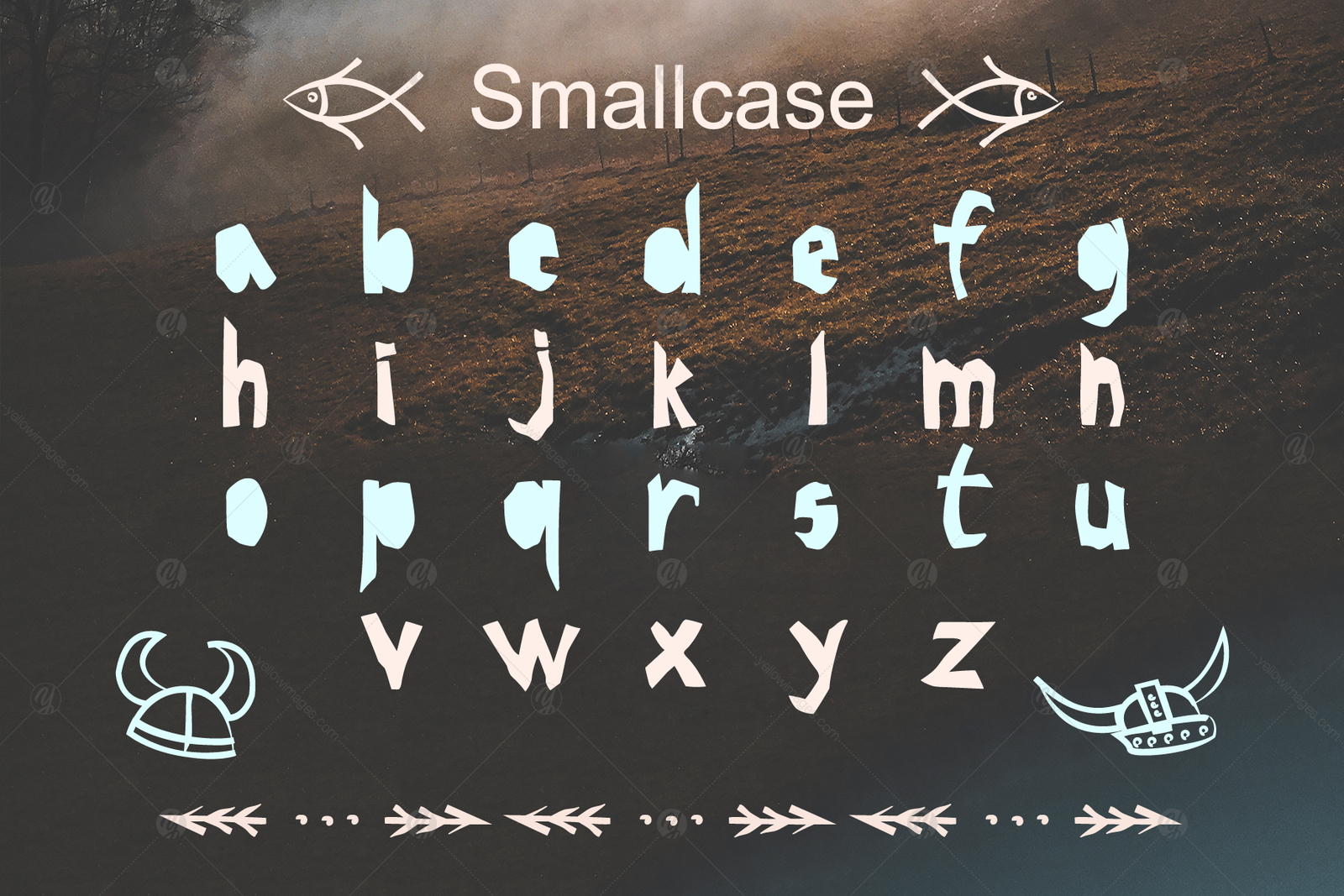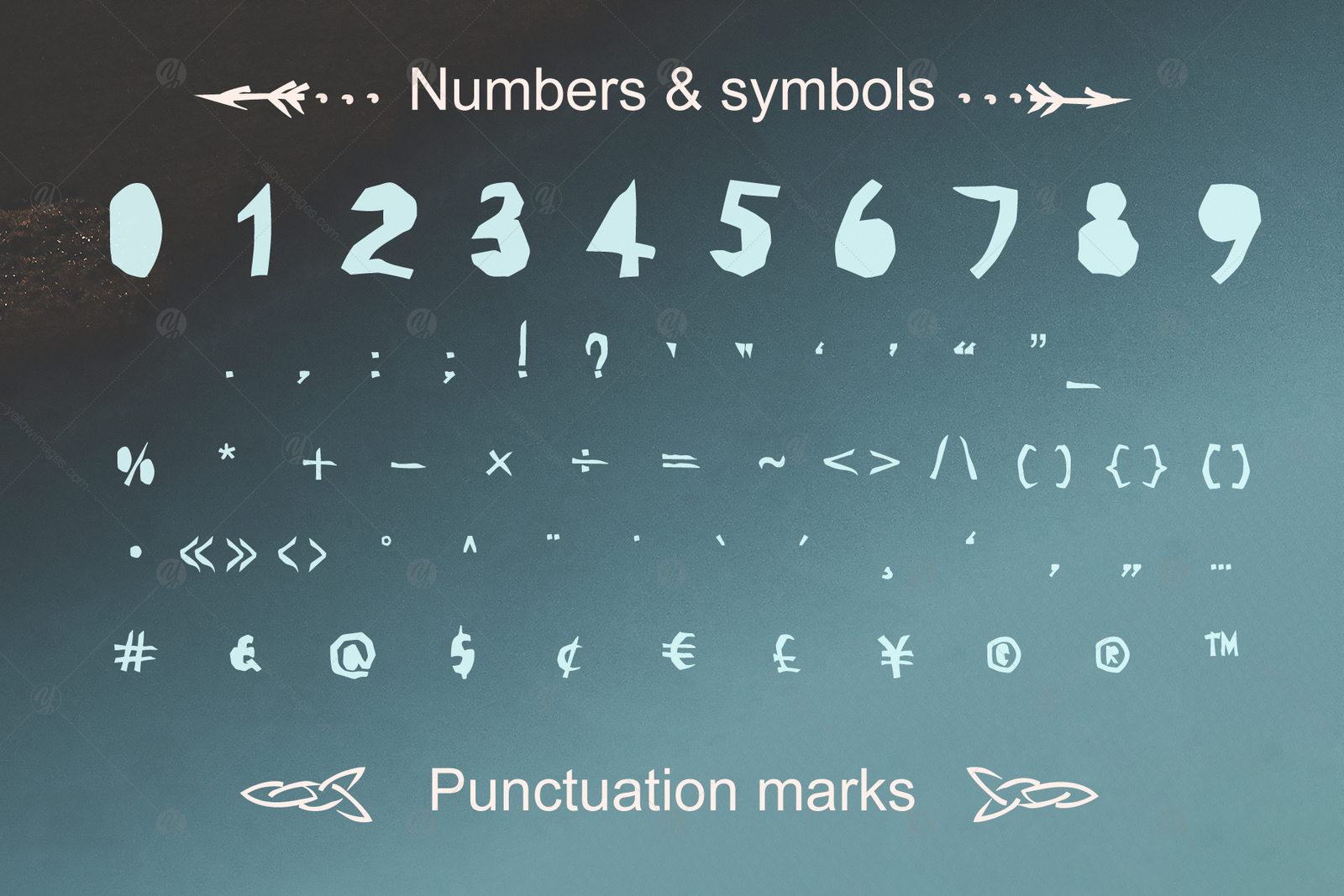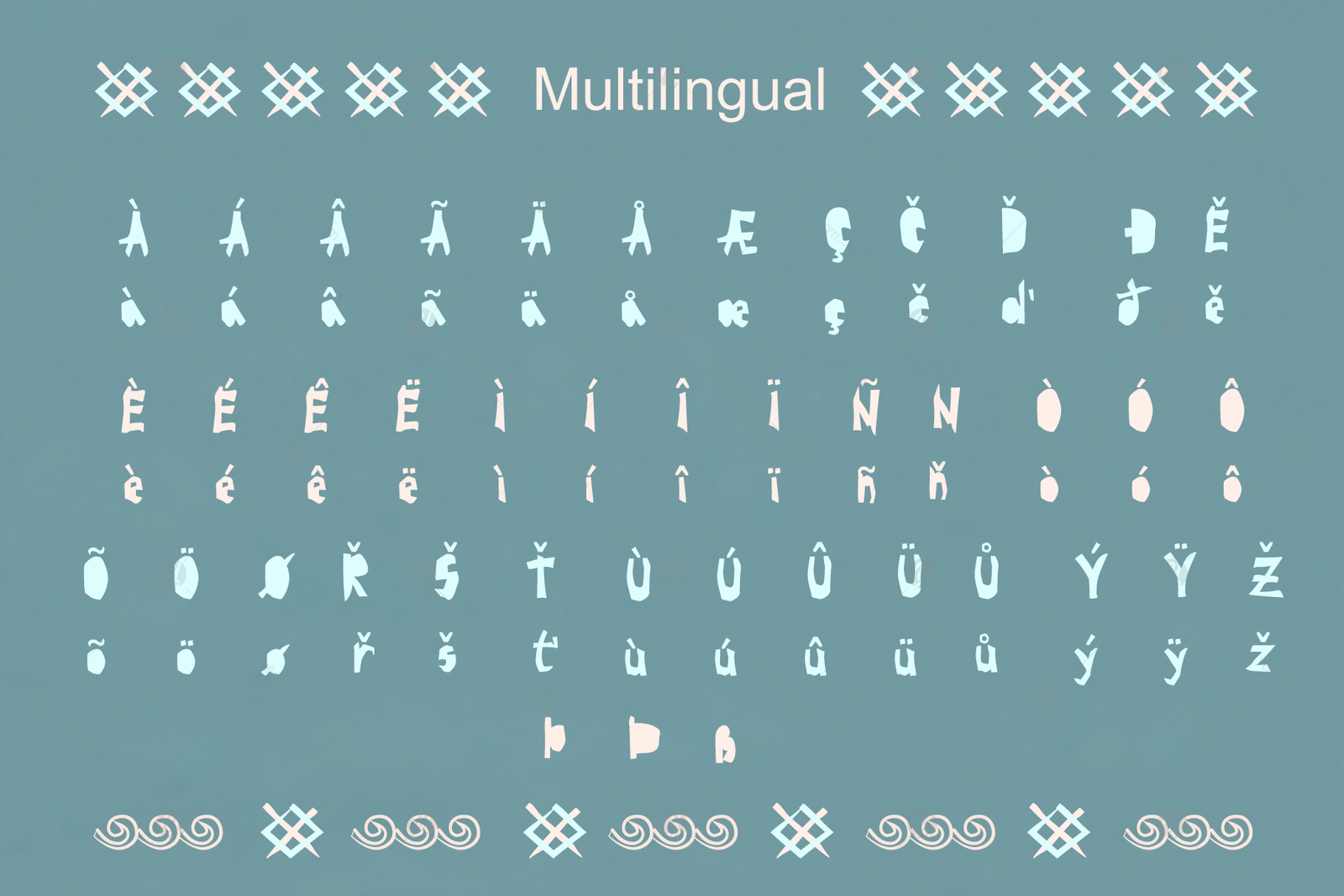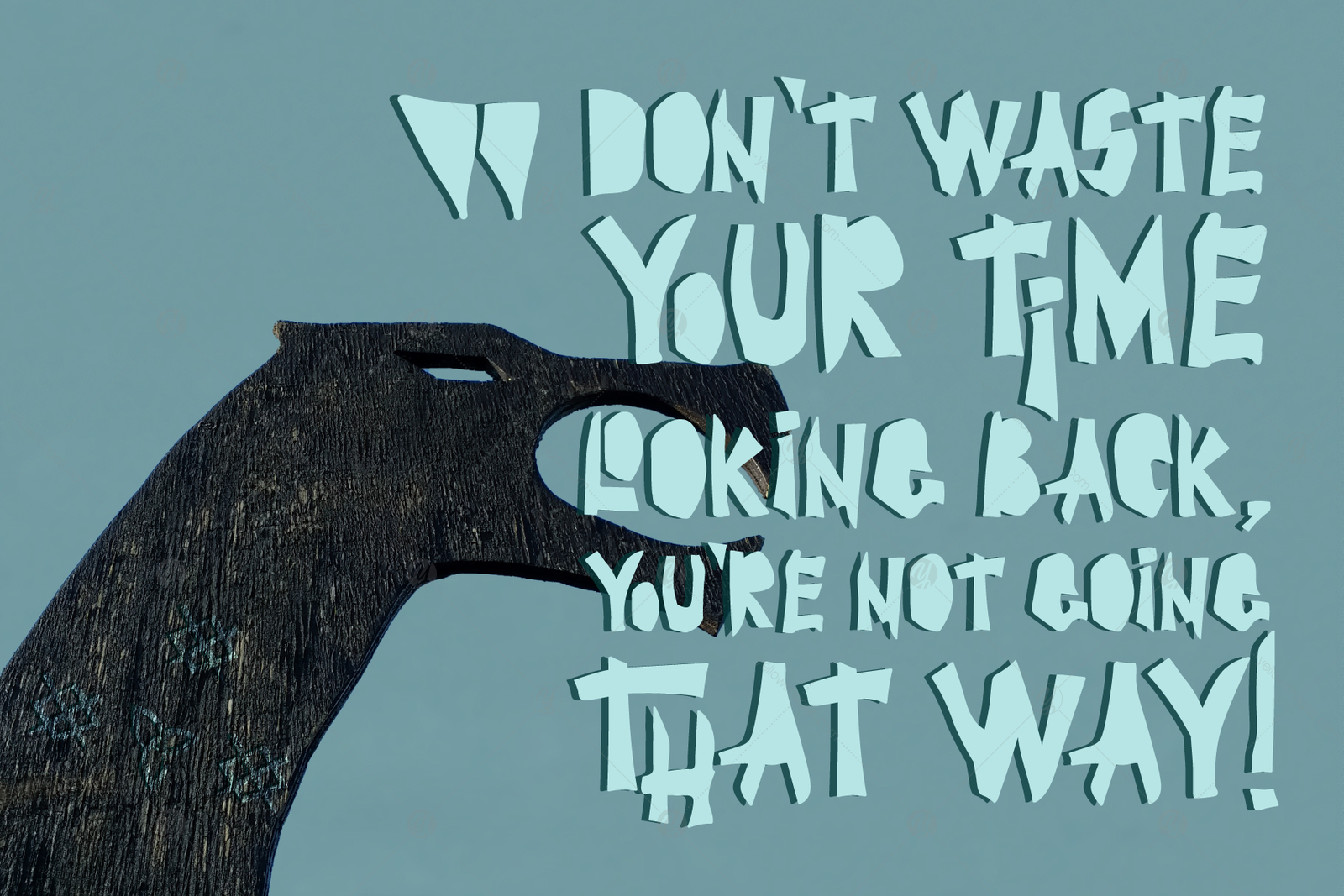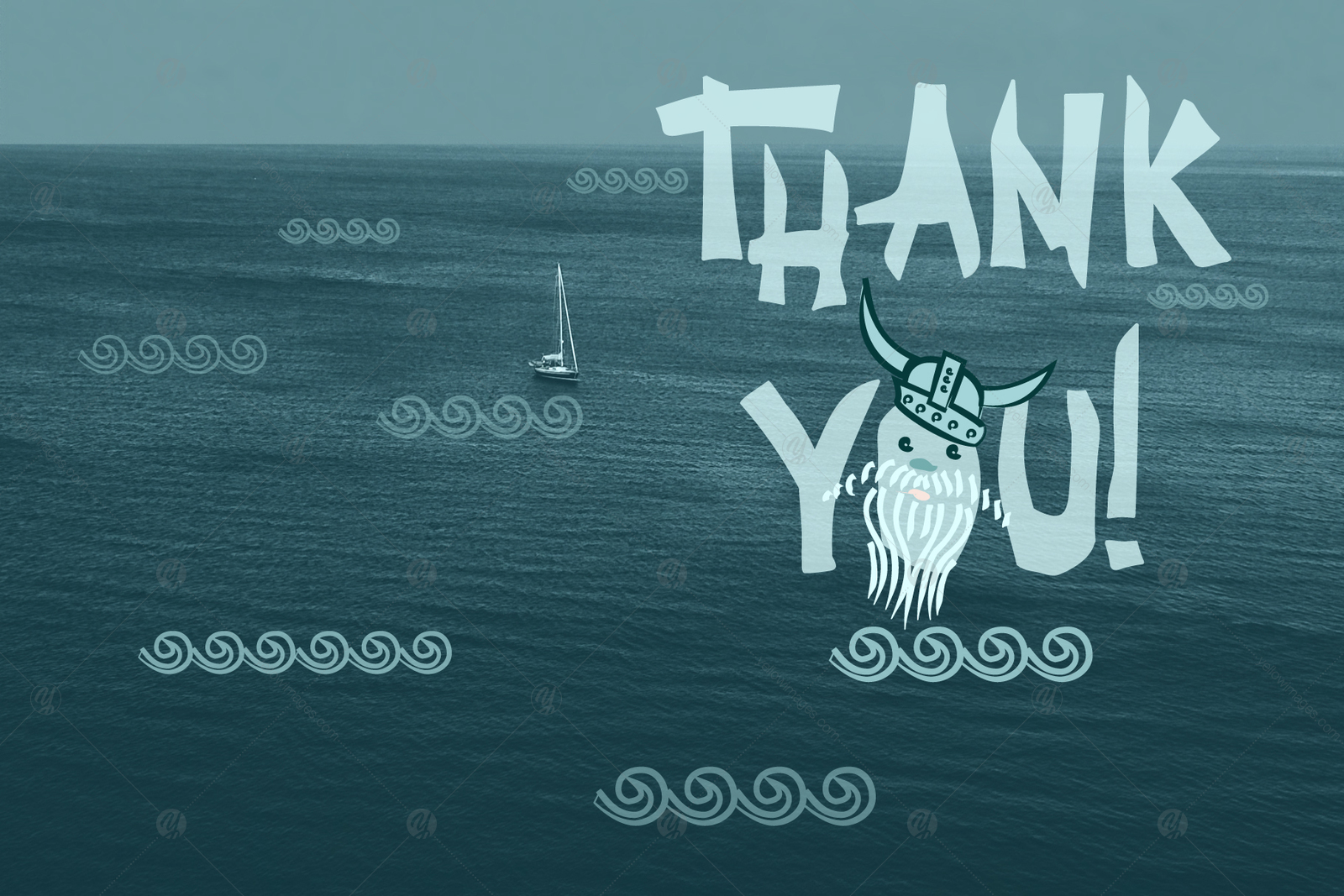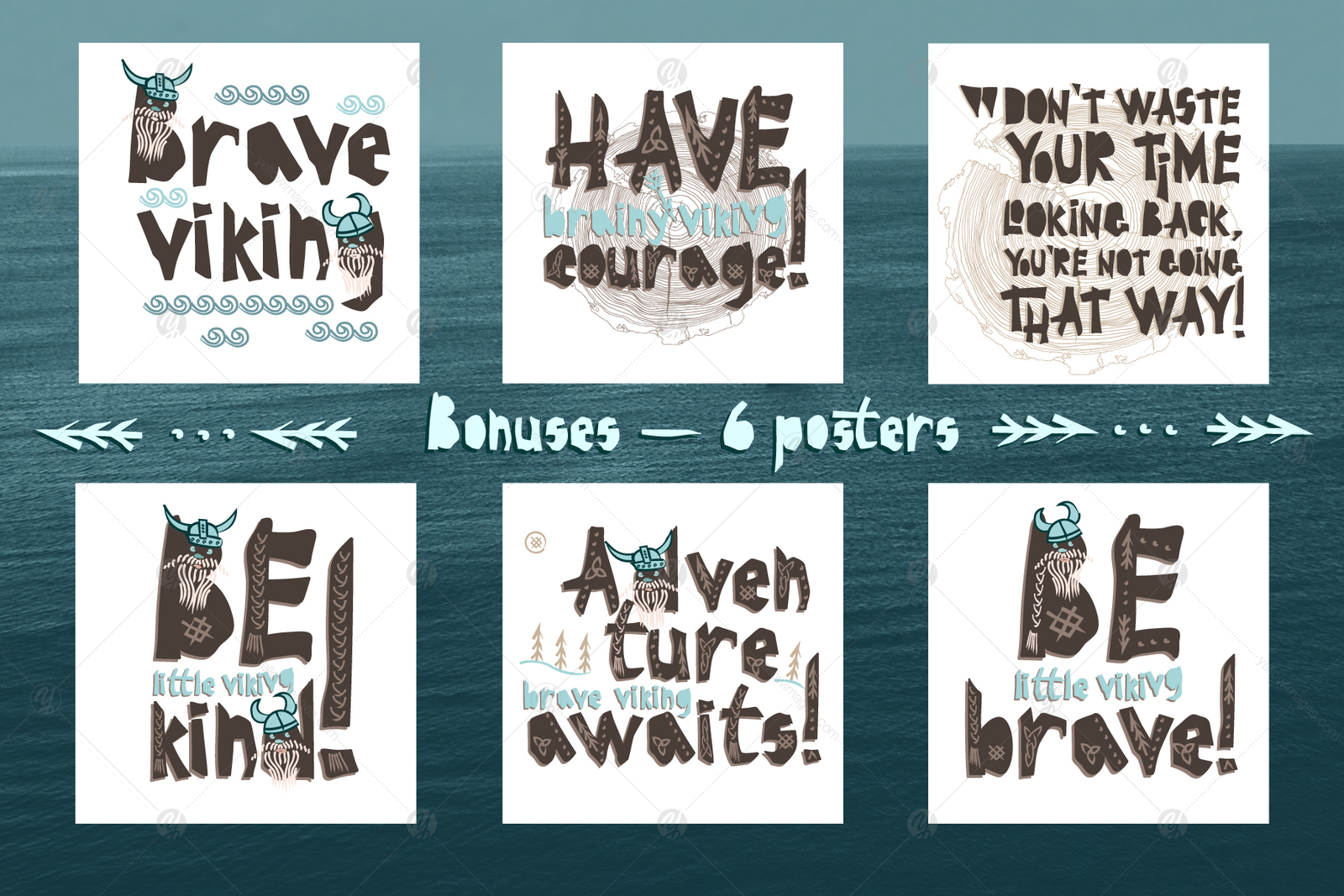
BRAVE-VIKING OTF font
Brave Viking is a beautiful and highly graphical grotesque sans serif font. With a compelling and unique style, this font is ideal for a wide range of modern typographic uses and designs.